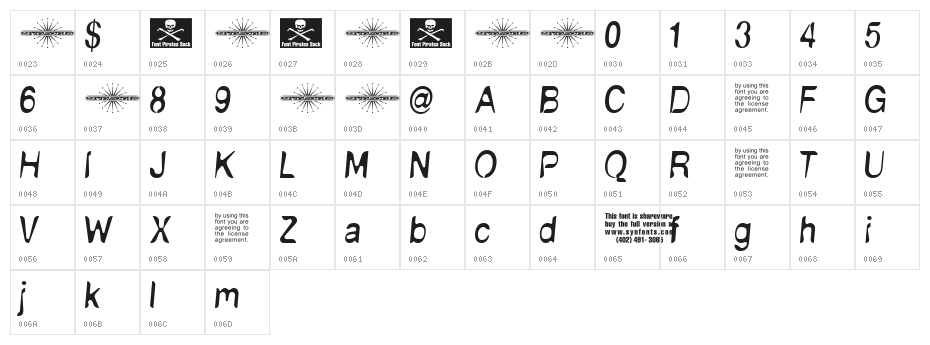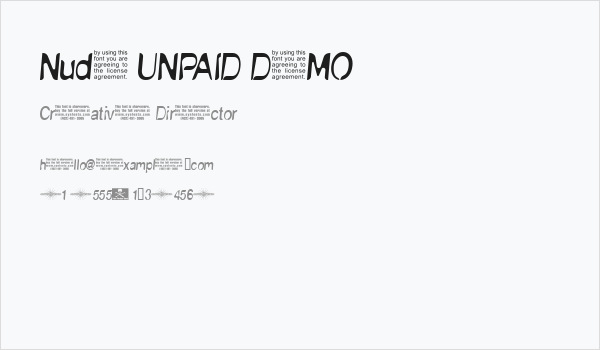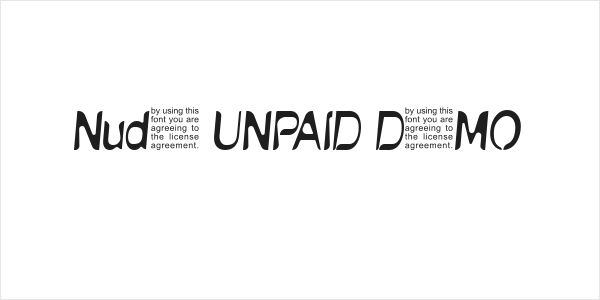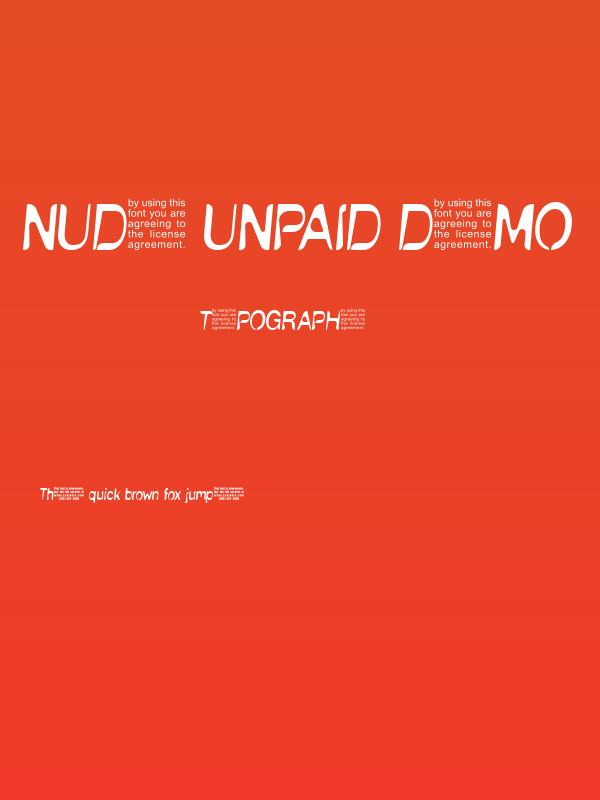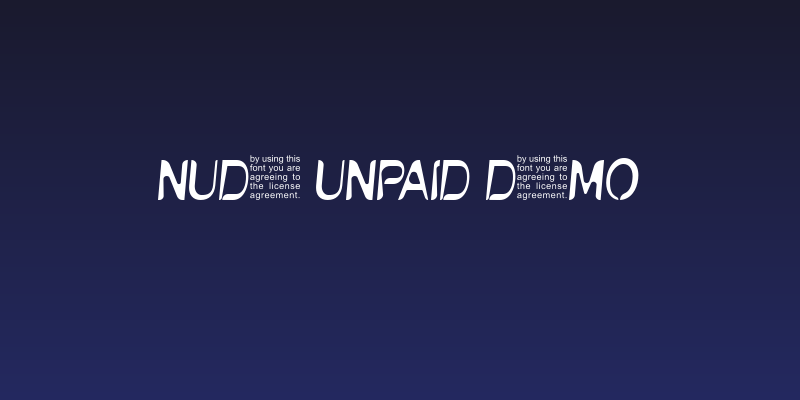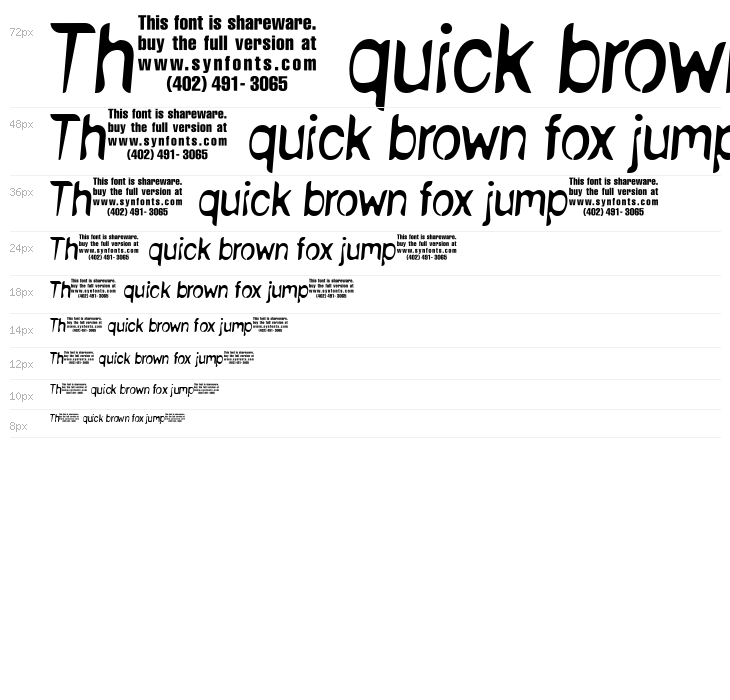
NudE UNPAID DEMO Font
NudE UNPAID DEMO Description
This font features a playful and dynamic style with slightly irregular strokes that give it a hand-drawn appearance. The letters have a casual, informal feel, with a mix of rounded and angular elements. The uppercase characters are bold and prominent, while the lowercase letters maintain a consistent flow. Numbers are distinct and easy to read, with a quirky touch that matches the overall aesthetic. Special characters are creatively designed, adding to the font's unique personality. The font's style is suitable for projects that require a fun and engaging look.
| Overall Style | Playful, Casual, Hand-drawn |
| Proposed Projects | Ideal for children's books, playful branding, casual invitations, and creative posters. |